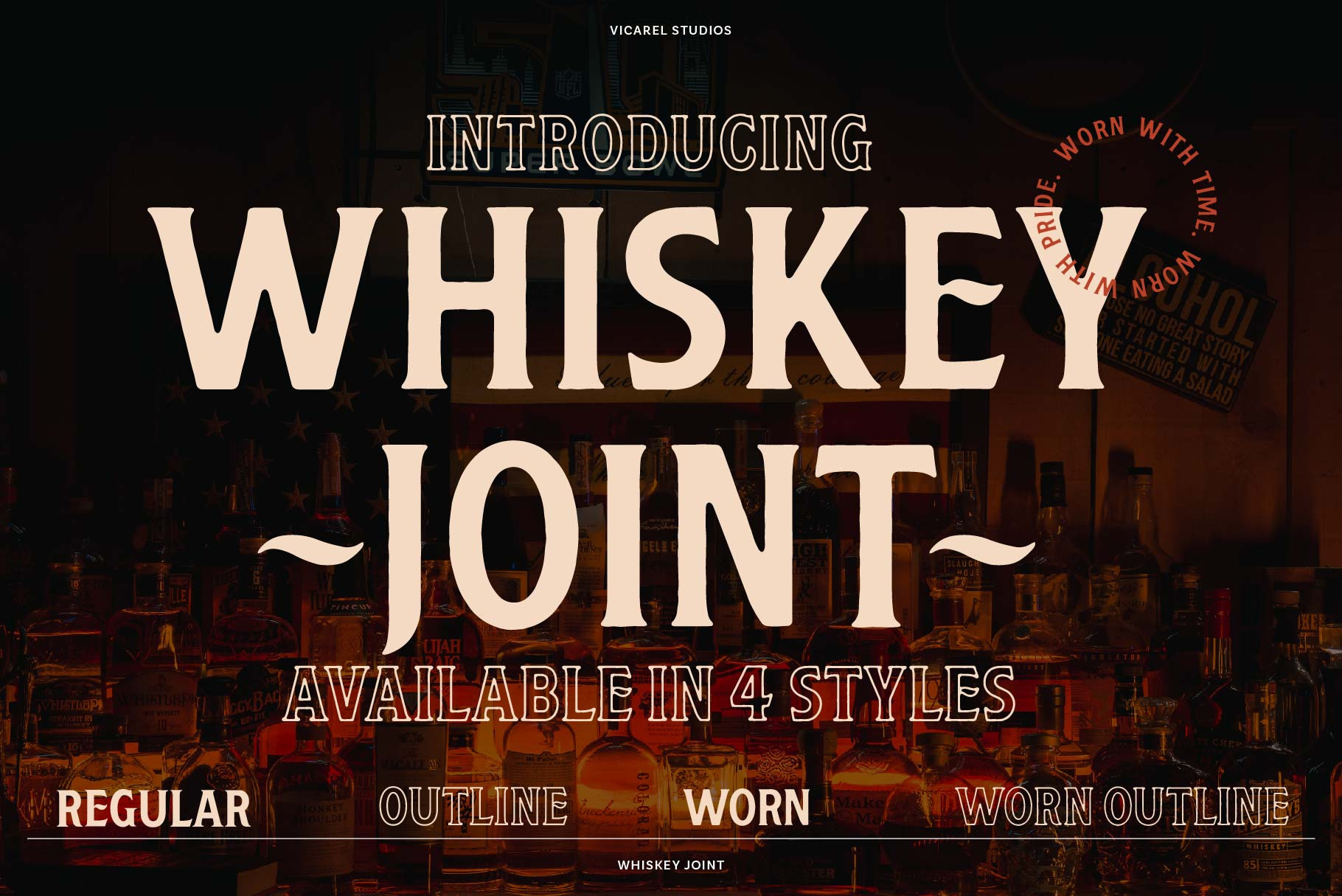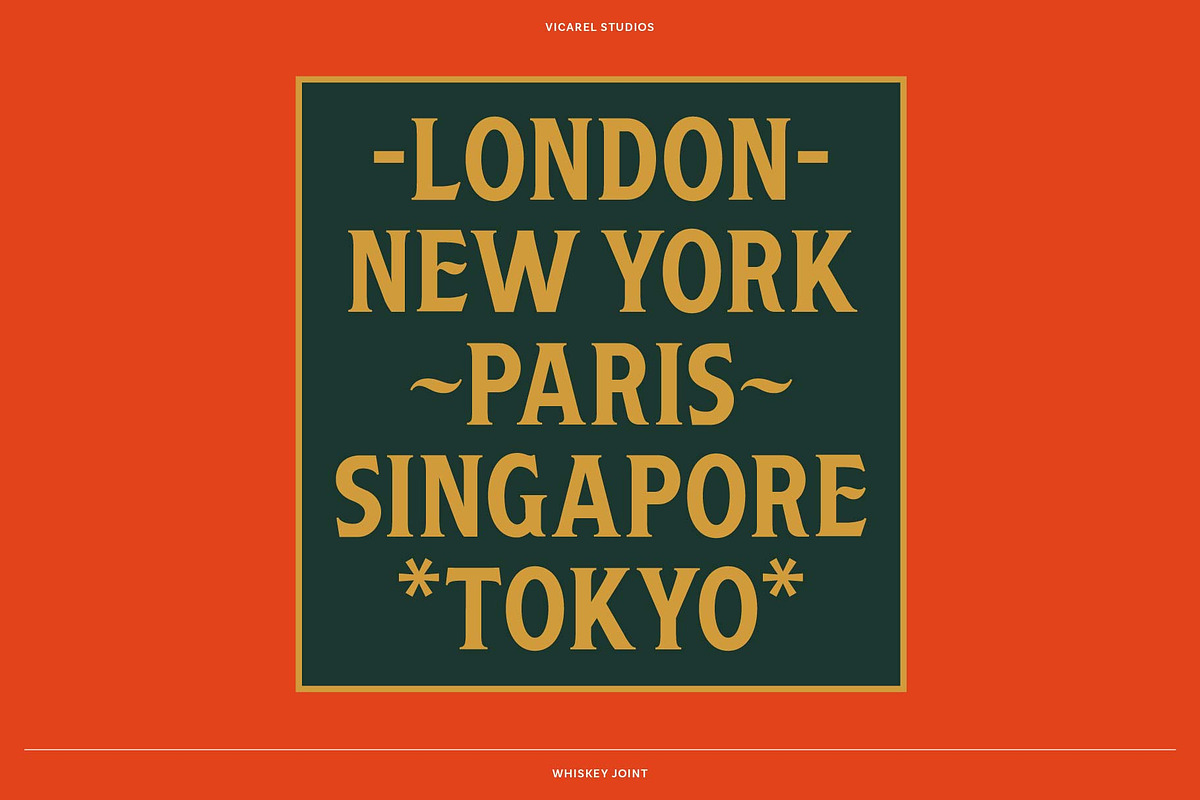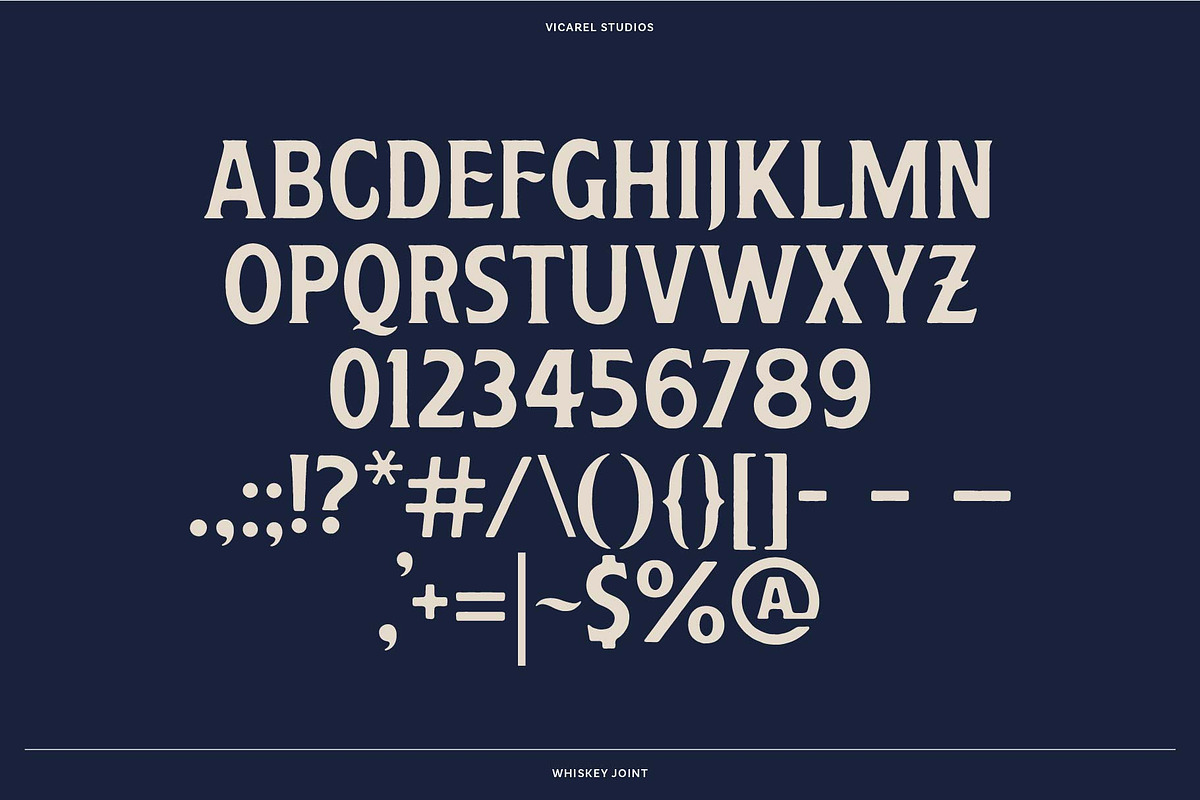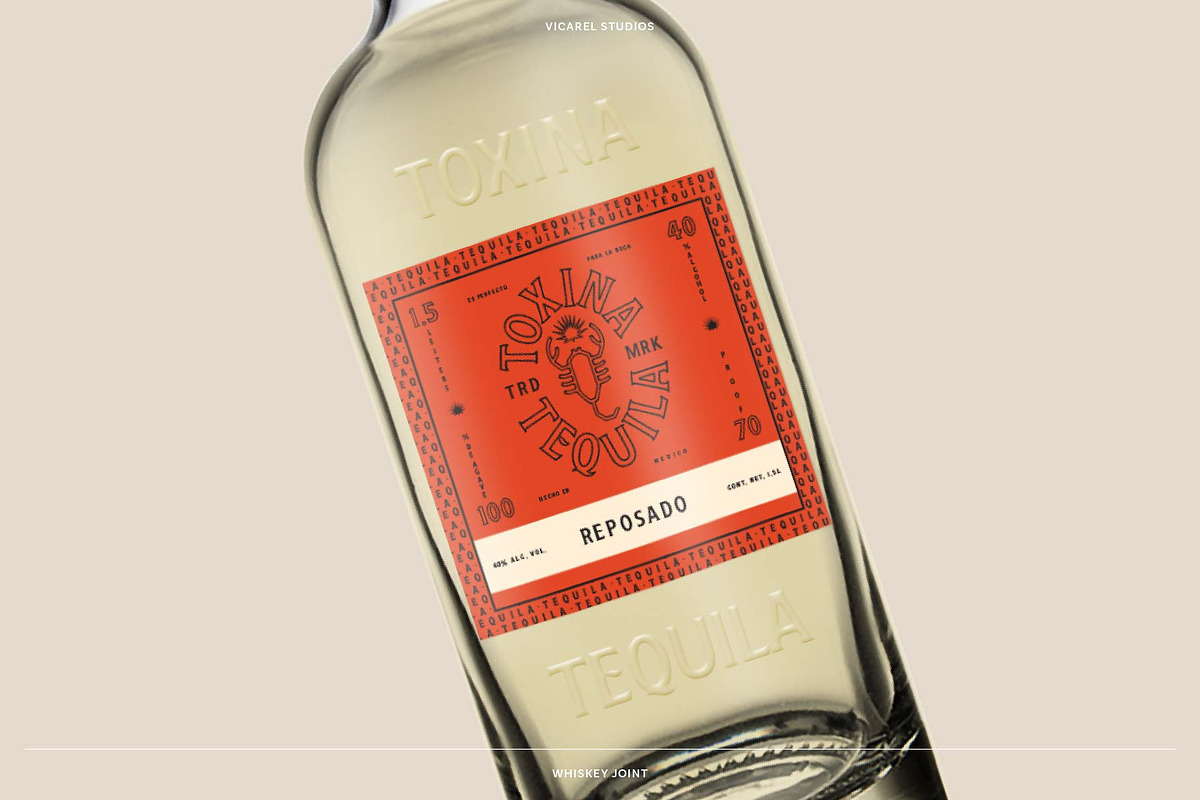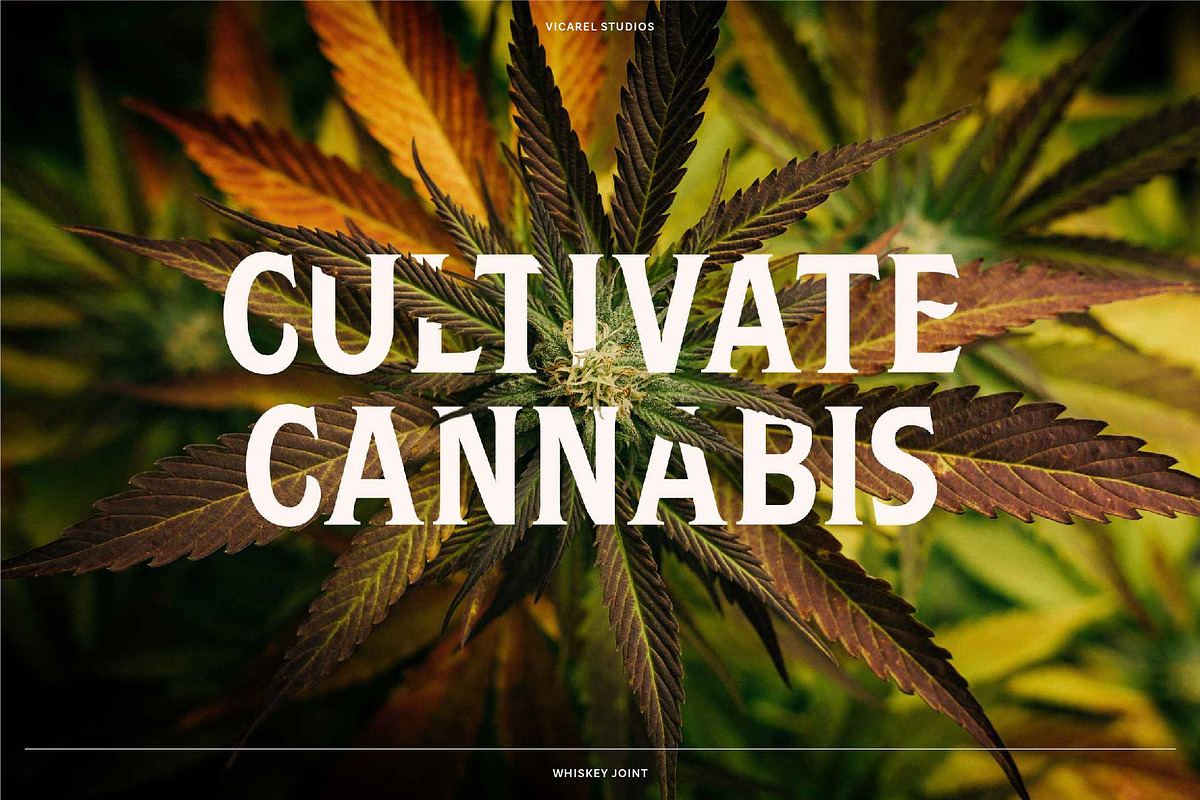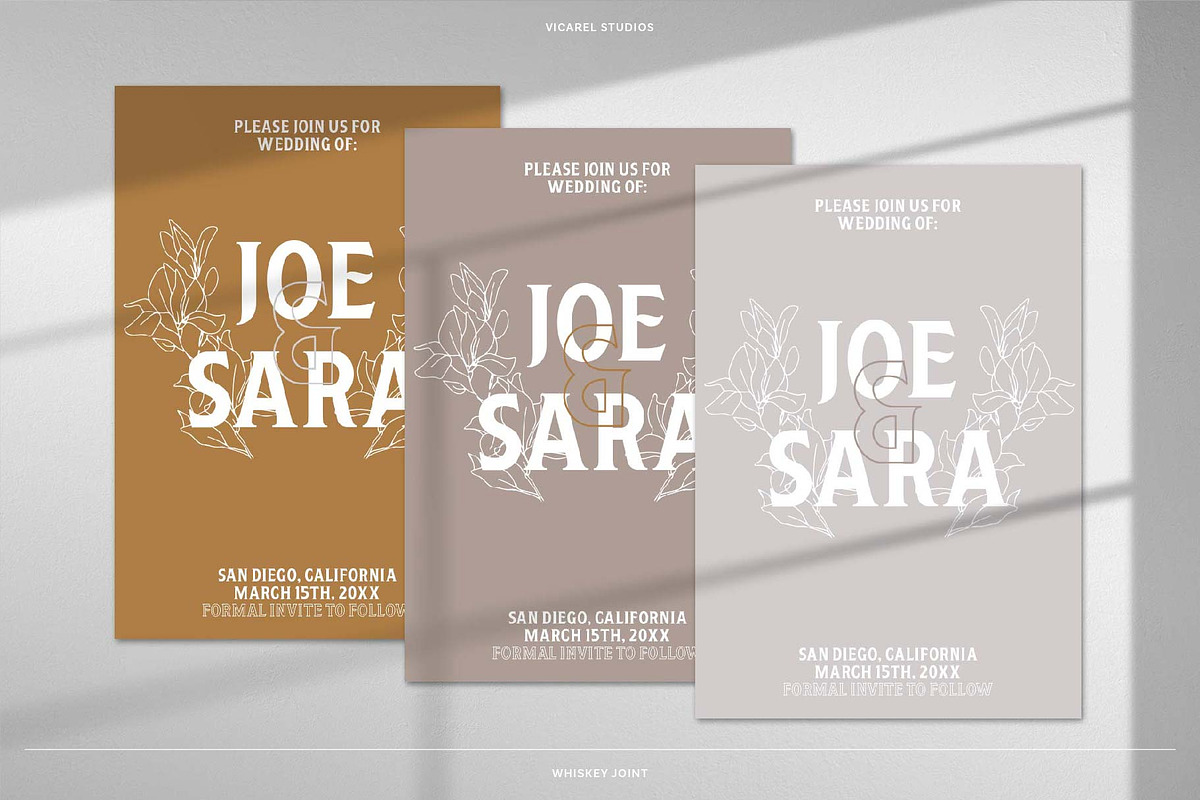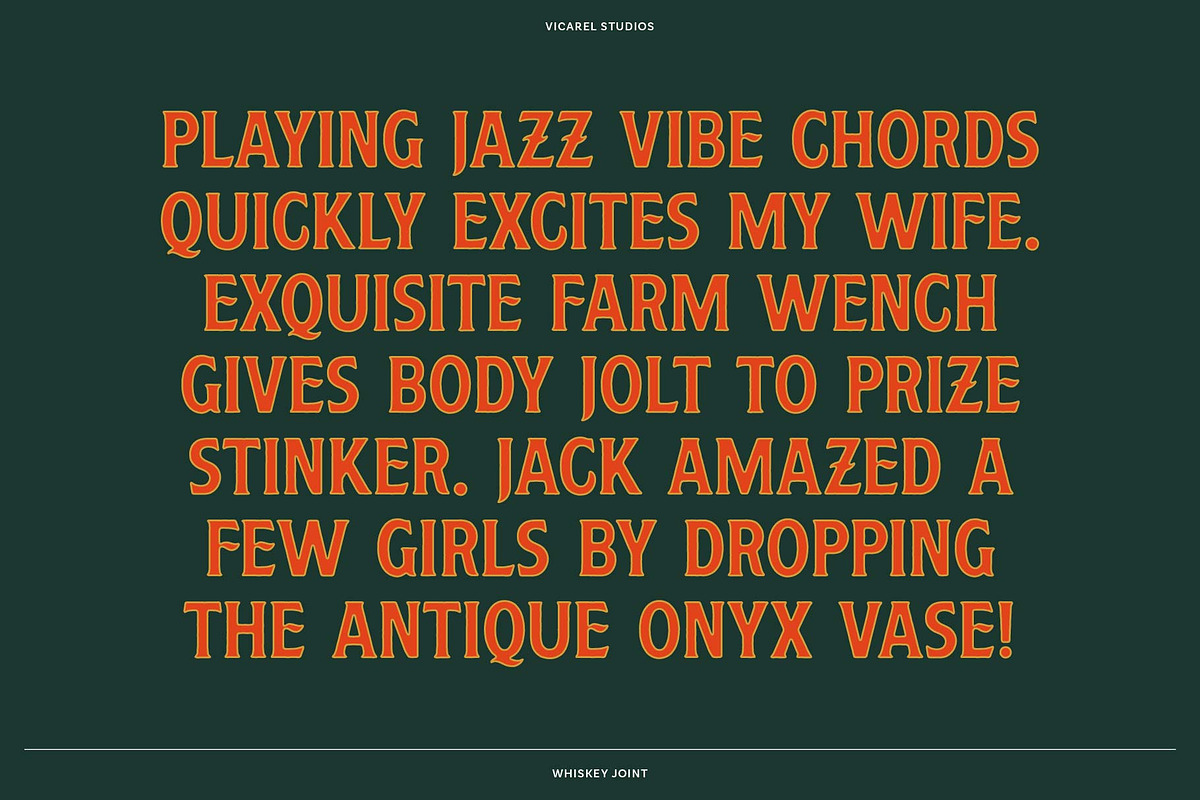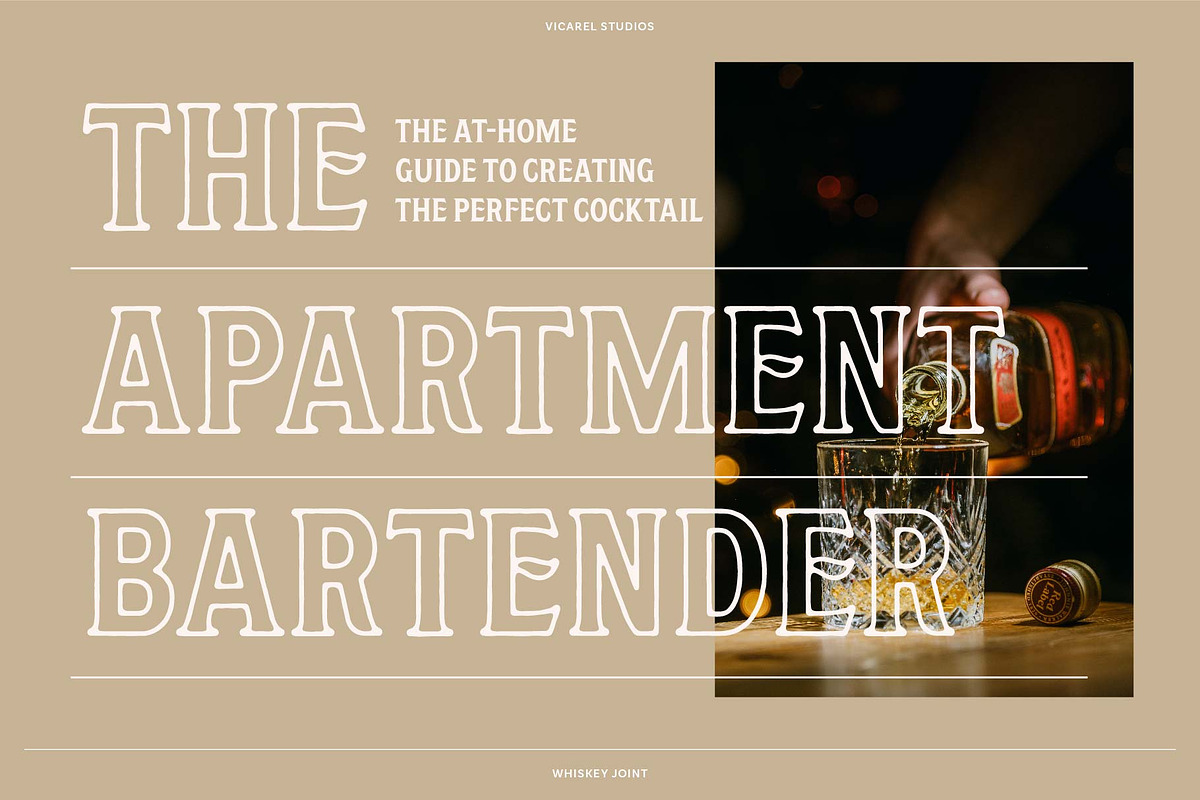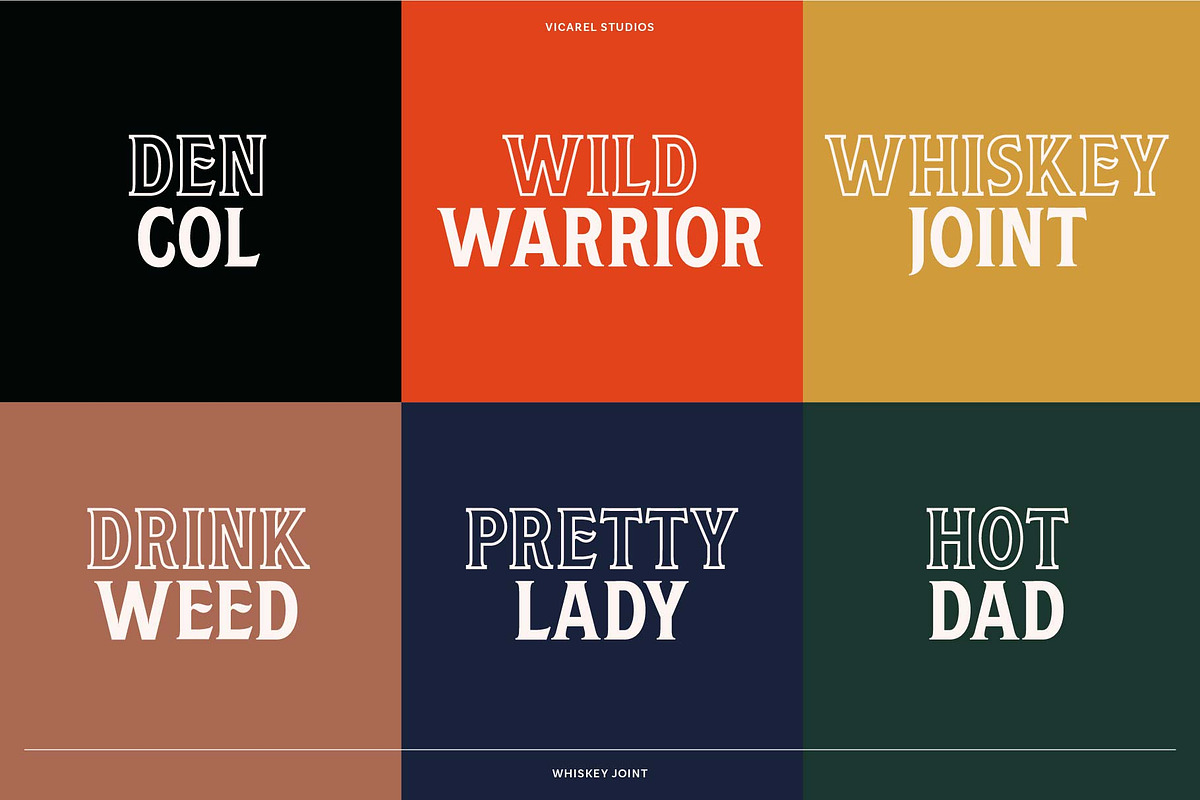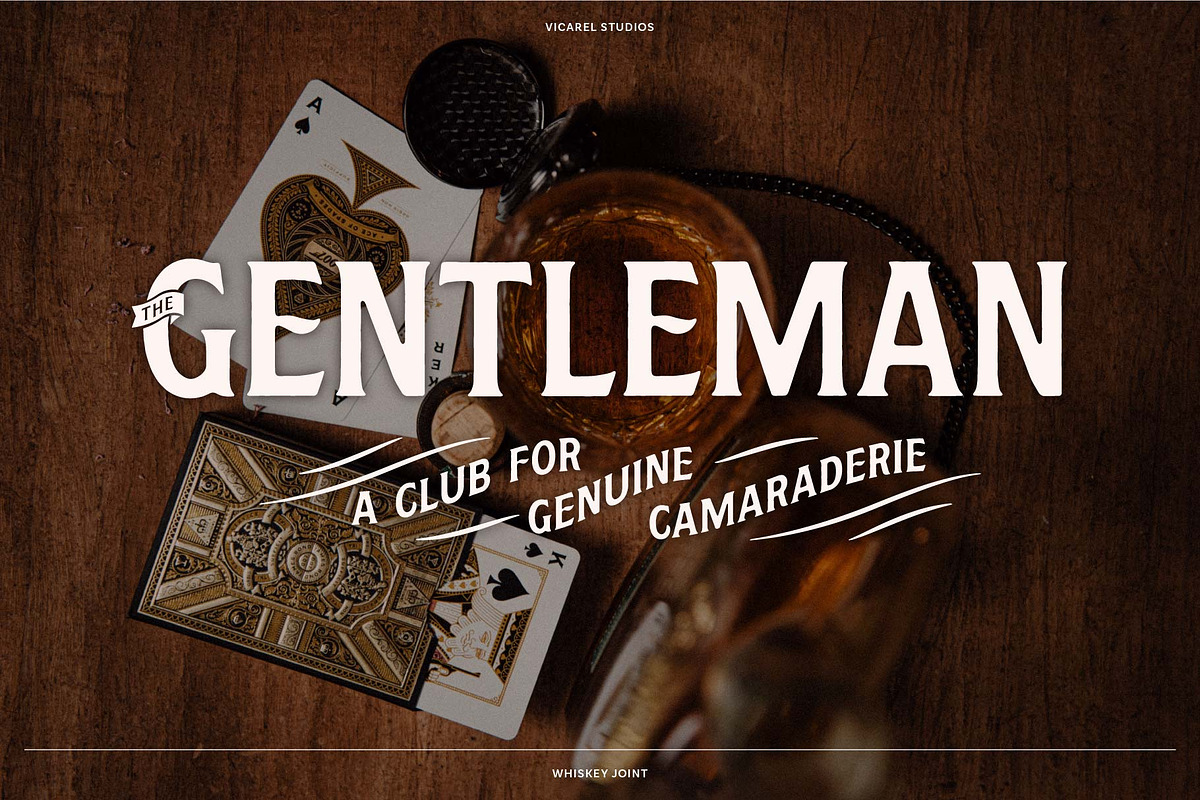
Whiskey Joint // Vintage Font
Whiskey Joint by Vicarel Studios
Whiskey Joint is vintage font inspired by the aesthetic of some of the most common vices, whiskey and weed. Coming in for styles: regular, outline, worn and worn outline, Whiskey Joint works best as a display face, but does also work as smaller body copy.
Whiskey Joint is inspired by vintage whiskey bottles and premium cannabis brands. This display font works great for logotypes, headlines, titles, callouts and other short lines of text. It is well-suited for campaigns, branding, packaging, editorial design, modern and vintage design.